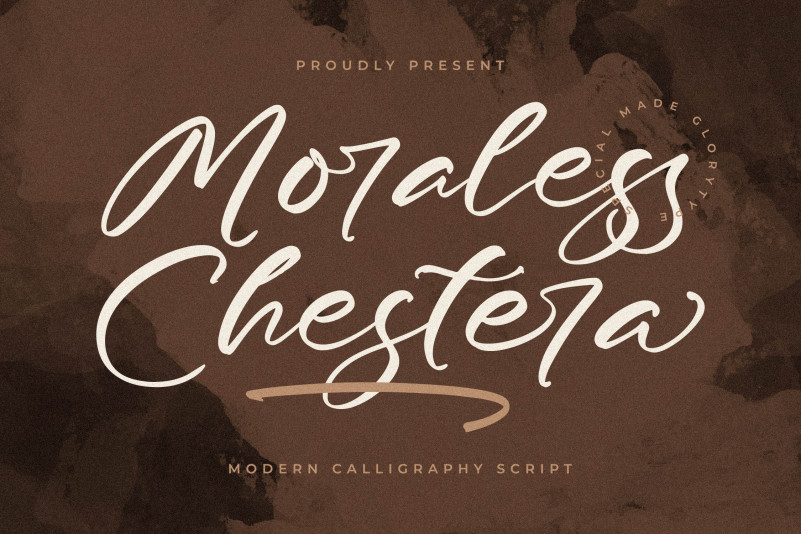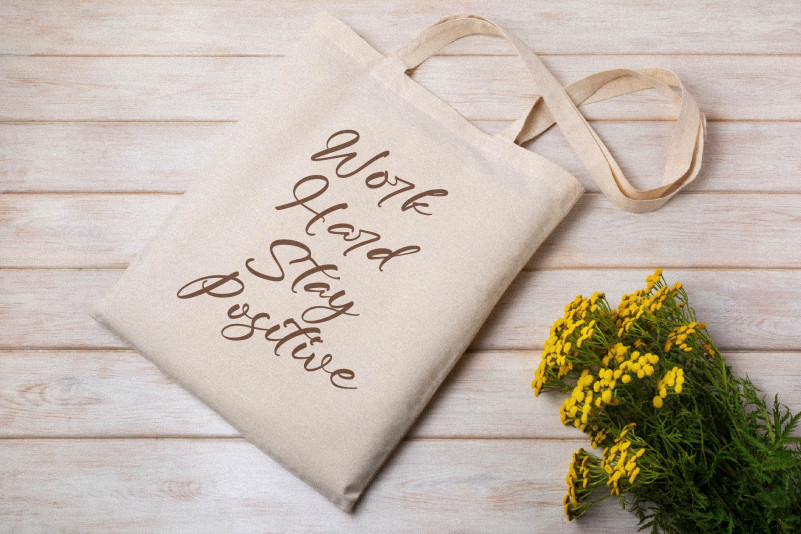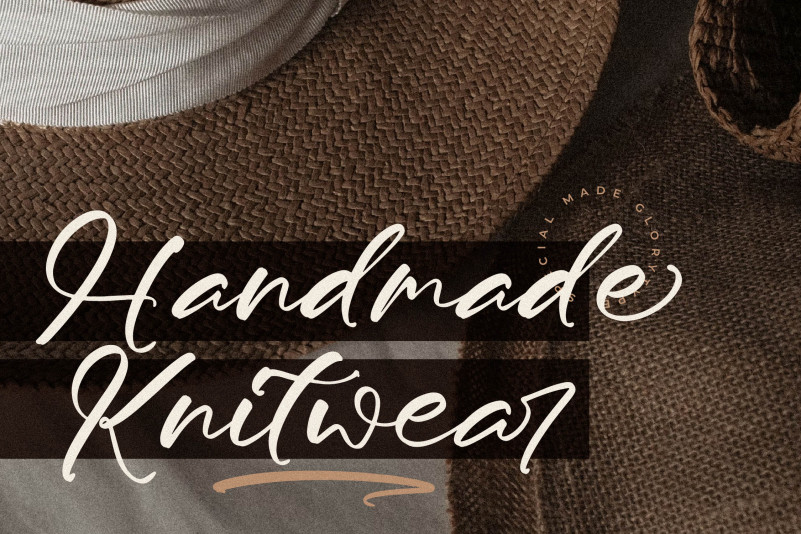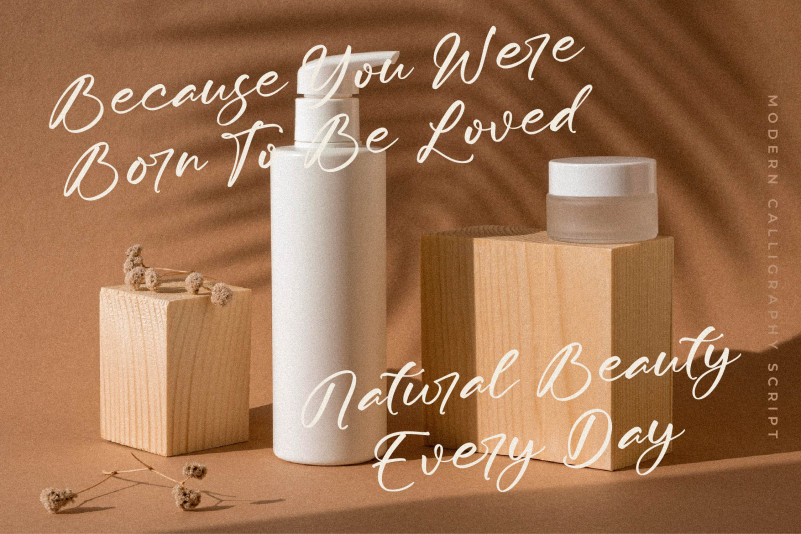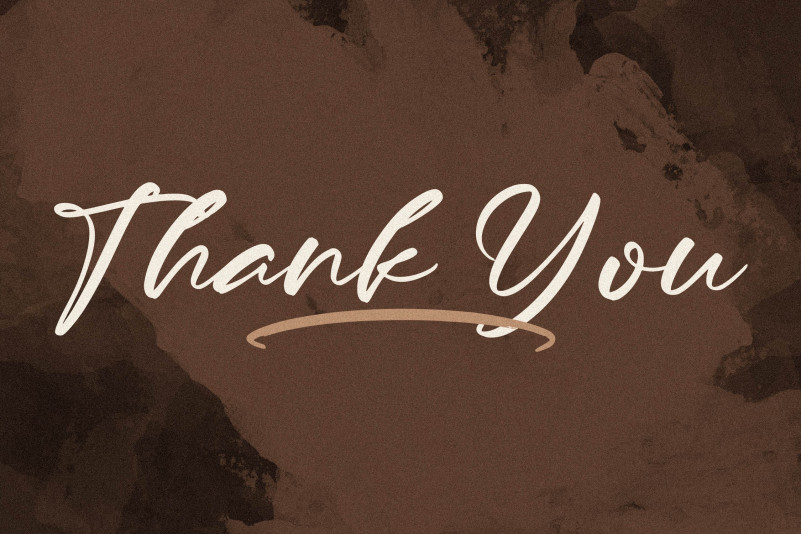
Moraless Chestera Font
Moraless Chester Script Font is a Modern Calligraphy Script Font, suitable for any projects such as: logos, branding projects, homeware designs, product packaging, mugs, quotes, posters, shopping bags, t-shirts, book covers, name card, invitation cards, greeting cards, label, photography, watermark, special events, and all your other lovely projects that need a beautiful script taste.